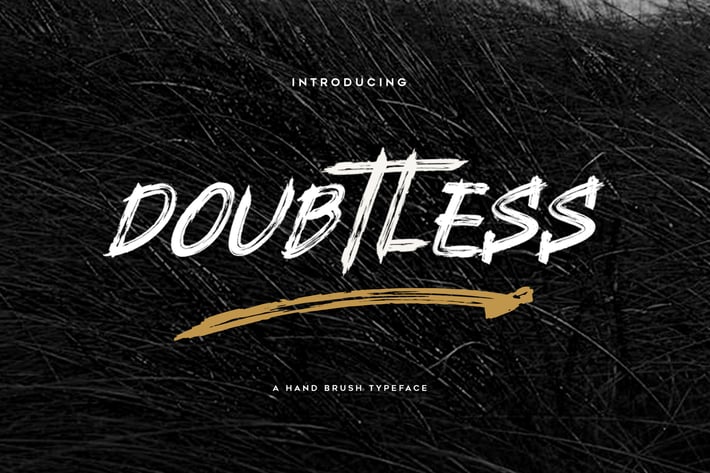
Doubtless Brush Font
Doubtless Brush Font is a striking and expressive hand-brushed typeface that captures raw energy and creativity. Designed with authentic brush strokes, this font exudes a natural texture and dynamic movement, making it an ideal choice for bold and impactful designs. Whether you’re working on posters, branding, merchandise, or social media graphics, Boldine ensures your message stands out with personality and confidence. It’s perfect for both digital and print creative projects that need a modern yet handcrafted touch.
+ Uppercase & Lowercase letters
+ Numbers & Punctuation
+ Alternate Characters & Ligatures
+ Authentic hand-brush texture
+ Multilingual Support
+ Branding & Logo Design
+ Posters & Flyers
+ Merchandise & Packaging
+ Music & Event Promotions
+ Social Media Posts
+ Book Covers & Editorials
Make a bold statement with Boldine Brush Font — where handcrafted strokes meet modern design!